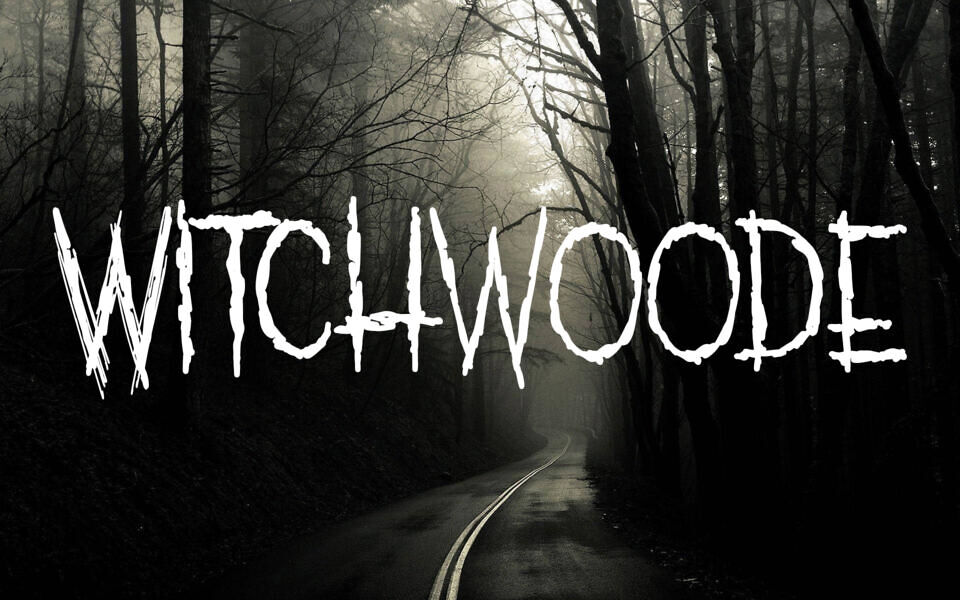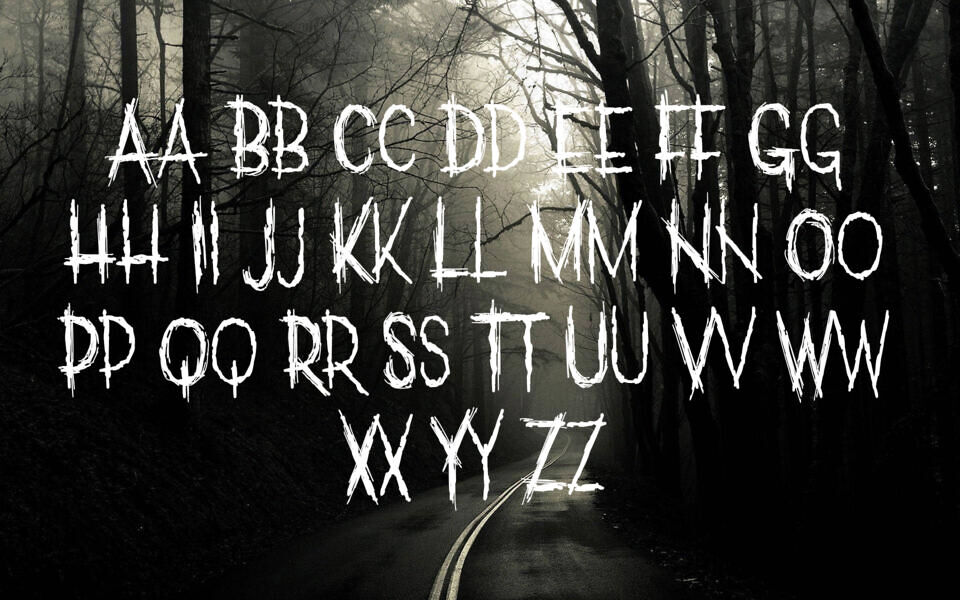
Witchwoode Font is a haunting hand-lettered typeface with jagged, gothic edges and a mystical allure—perfect for spooky designs, titles, and graphics. Its irregular, textured style evokes an eerie woodland vibe, ideal for spooky designs.